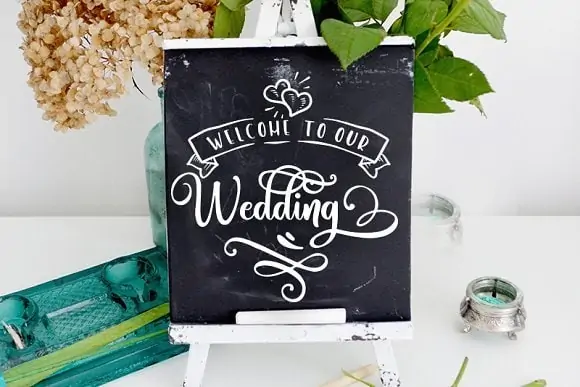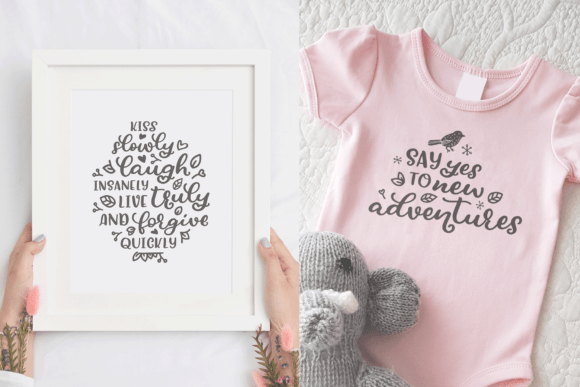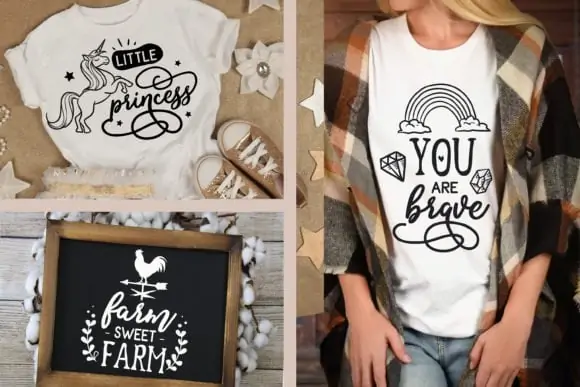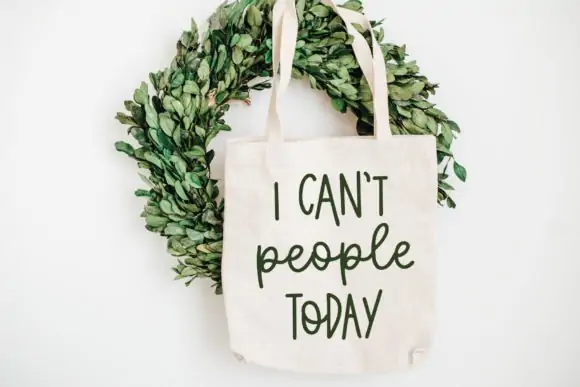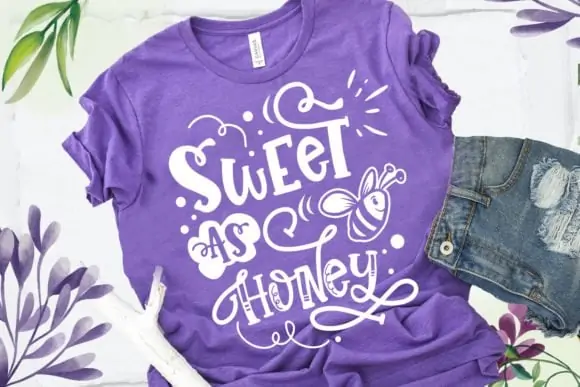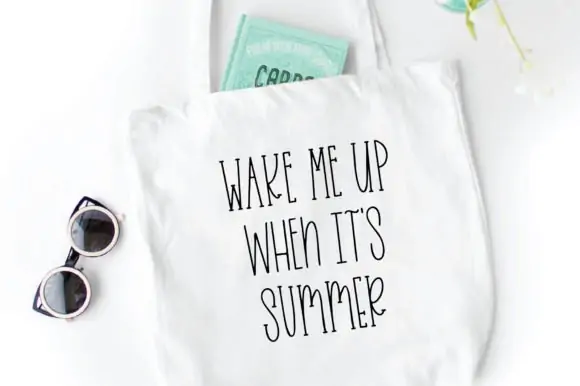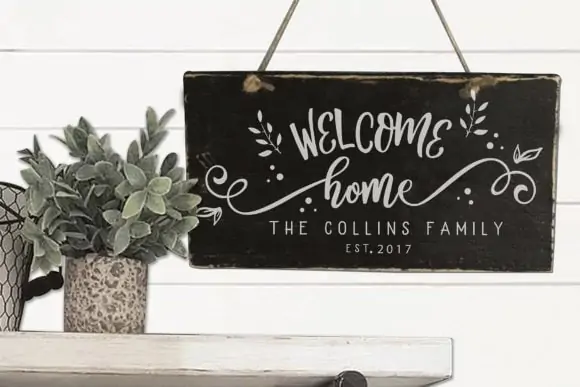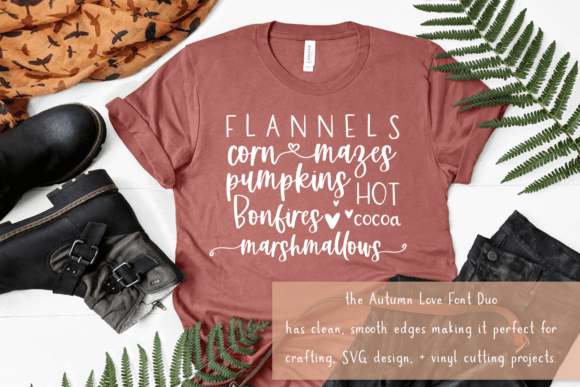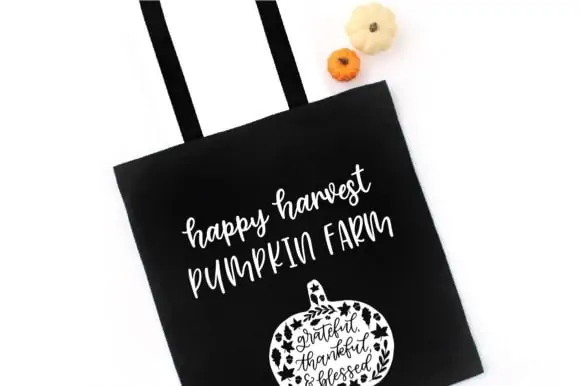
Are you looking for farmhouse fonts for Cricut? You will love this list of the best farmhouse fonts, including script, modern, and rustic styles. Download the Cricut farmhouse-style fonts to signs with a Maker or Explore machine.
If you love everything farmhouse-style like me, you are in the right place. Learn all about the best and most popular styles of Cricut farmhouse fonts to download in this post.
Vinyl and stencil wood signs can transform any space and add charm. Whether you want to make a welcome sign for your porch or a family name sign, these fonts come in handy.
You can easily upload and use the fonts in Cricut Design Space, from cursive fonts to script and modern.
Create rustic lettering for a DIY project with these farmhouse fonts for Cricut. The fonts in this post are perfect for making farmhouse-style wood signs for your porch, kitchen, living room, or bedroom.
Making signs for special occasions and holidays like Mother’s Day, Fall, Thanksgiving, Winter, and Christmas using these fonts is so much fun.
You can also use these fonts to add a touch of farmhouse goodness to items like shirts, tote bags, mugs, doormats, and tumblers.
Best Farmhouse Fonts For Cricut
1. Amastery
Amastery is a rustic font combination of script and sans farmhouse font styles. The cursive version of the font comes with tons of elegant swashes and tails that will add a special touch to your designs.
The font is fantastic for making farmhouse-style signs, clothing, and home decor items. The bonus elements include banners, arrows, hearts, and nature doodles. These elements combine beautifully with the font to create one-of-a-kind designs.
2. Love at First Sight
Love at First Sight is an adorable farmhouse font duo. The modern boho look of the font makes it a perfect choice for creating cute farmhouse-style designs with your Cricut.
It’s a super smooth and clean font combination that will work great in your Cricut DIY craft projects. What’s more, the font also comes with a set of cute tails.
The calligraphy font is bouncy and thick, making it the perfect choice for making playful farmhouse-style signs, shirts, and mugs. The adorable nature doodles of leaves, flowers, and hearts make a fantastic bonus to the already irresistible font.
3. Biosha
Biosha is a rustic farmhouse-style font combination for Cricut. The script version of the font is elegant and bold.
The sans version has slightly textured edges that add to the country cottage farmhouse look of the font. And the cursive font includes tons of cute swashes, swirly drops, and tails. You can make unique farmhouse-style signs with the font.
The bonus elements in the font will elevate your designs to the next level. Banners, birds, rainbows, flowers, unicorns, and many more whimsical nature-inspired doodles are included.
4. Eucalyptus Spearmint
Eucalyptus Spearmint is one of my favorite fonts on this list. It’s a cute and modern farmhouse-style font that will add a playful touch to your designs.
My favorite thing about this font is that it is a font duo – a bouncy script version and a playful sans version.
The font has been beautifully crafted and is perfectly smooth to work with Cricut. I have used this font for a wide range of projects – baby apparel, funny shirts for moms, mugs, and tote bags. This is my go-to font for making anything cute.
5. Sorinka
Sorinka is a thick and bouncy, playful farmhouse-style font. With swirls, swashes, catchwords, and loops, the font can transform simple text into something bold and magical.
The bonus doodles are amazing, making this a must-have font. Flowers, rainbows, banners, snowflakes, feathers, and arrows included in this generous font pack work seamlessly to create cheerful farmhouse designs.
6. Easy Breezy
Easy Breezy is a tall and skinny, farmhouse-style Cricut font. Its modern look makes for the perfect choice for creating playful designs.
Available in a serif and sans version with tons of cute nature and summer doodles to elevate your crafts projects to the next level.
Funny quotes look unbelievably cute in this font. Its light and airy look makes it an awesome font to use in your Cricut summer crafts like shirts, tote bags, drinkware, and signs.
7. Berson Dream
Berson Dream is a crafter’s dream come true! It is a font trio that adds a whimsical touch to farmhouse-style designs. With swirly swashes and elegant alternates, the script font with tails transforms simple text into unique designs.
Also included are tons of beautiful and rustic bonus illustrations and ornaments; this is a must-have font in a farmhouse-lover font library. The font’s earthy and organic feel is perfect for making rustic farmhouse-style designs.
8. Autumn Love Duo
Autumn Love is a warm and cozy farmhouse-style font duo. The script and sans versions mix effortlessly to create the cutest designs for Cricut.